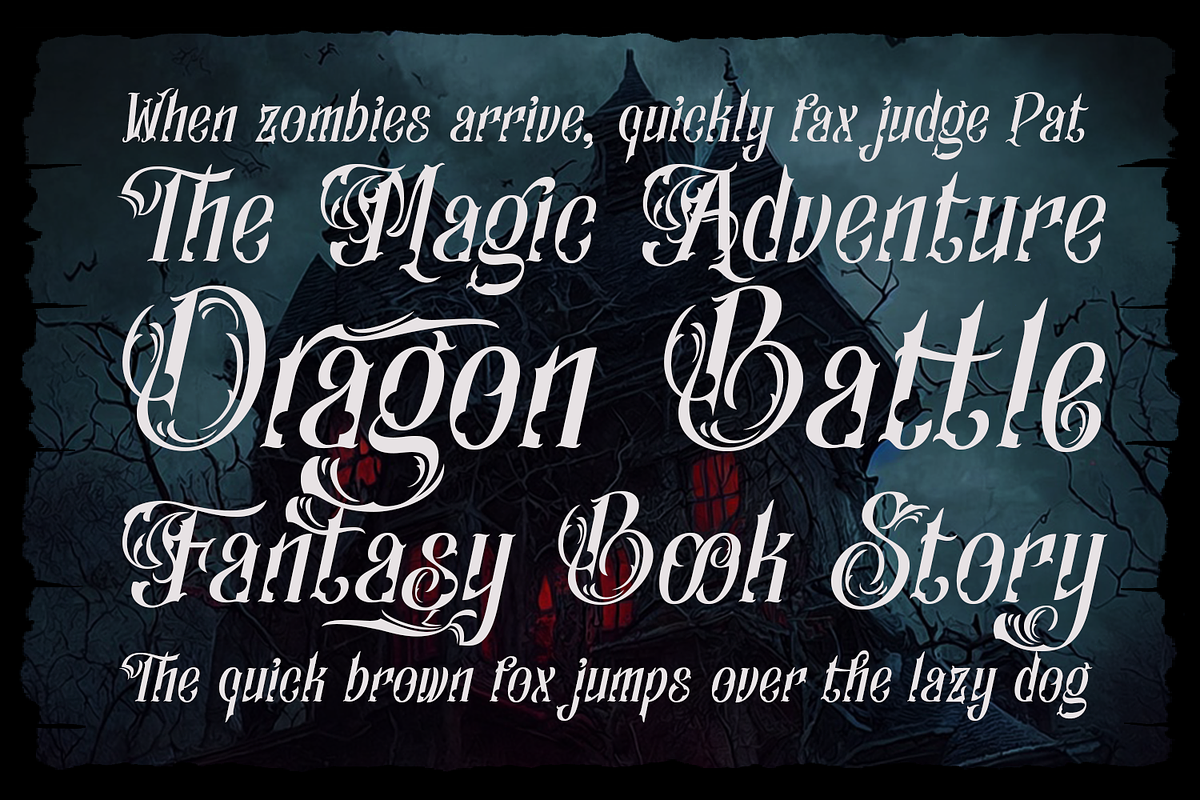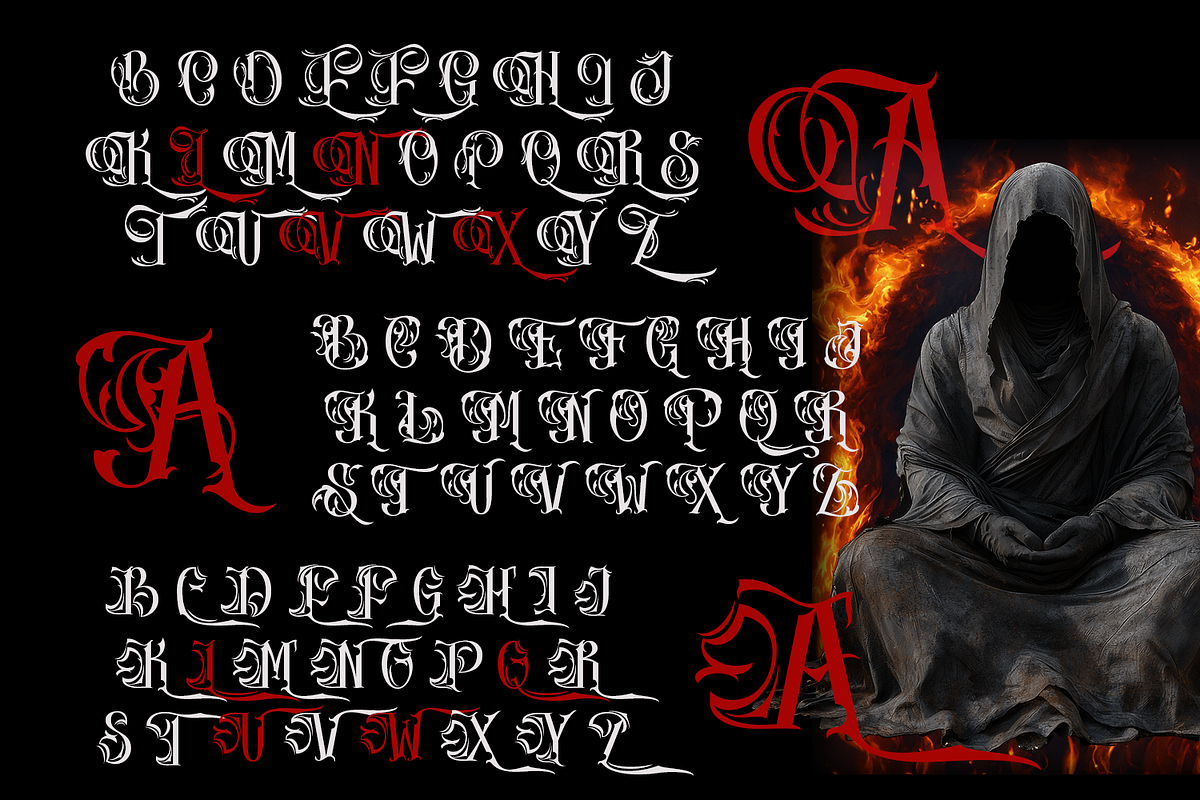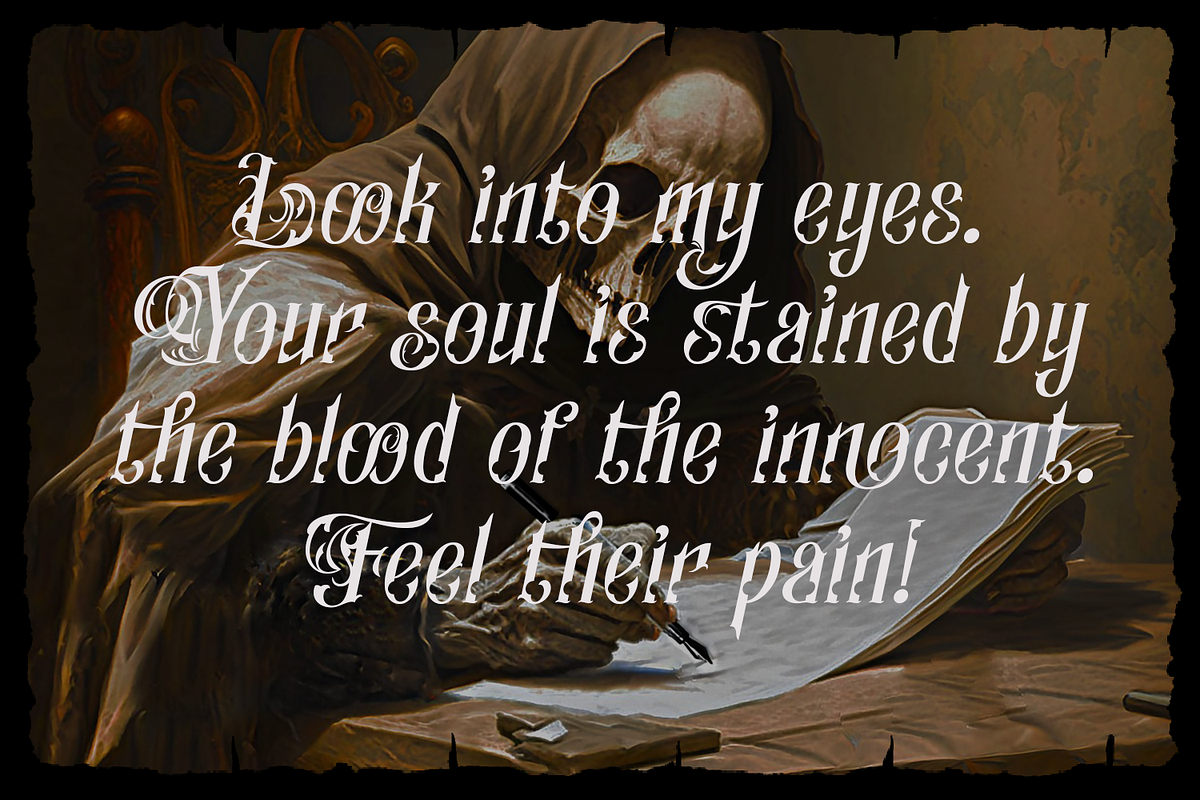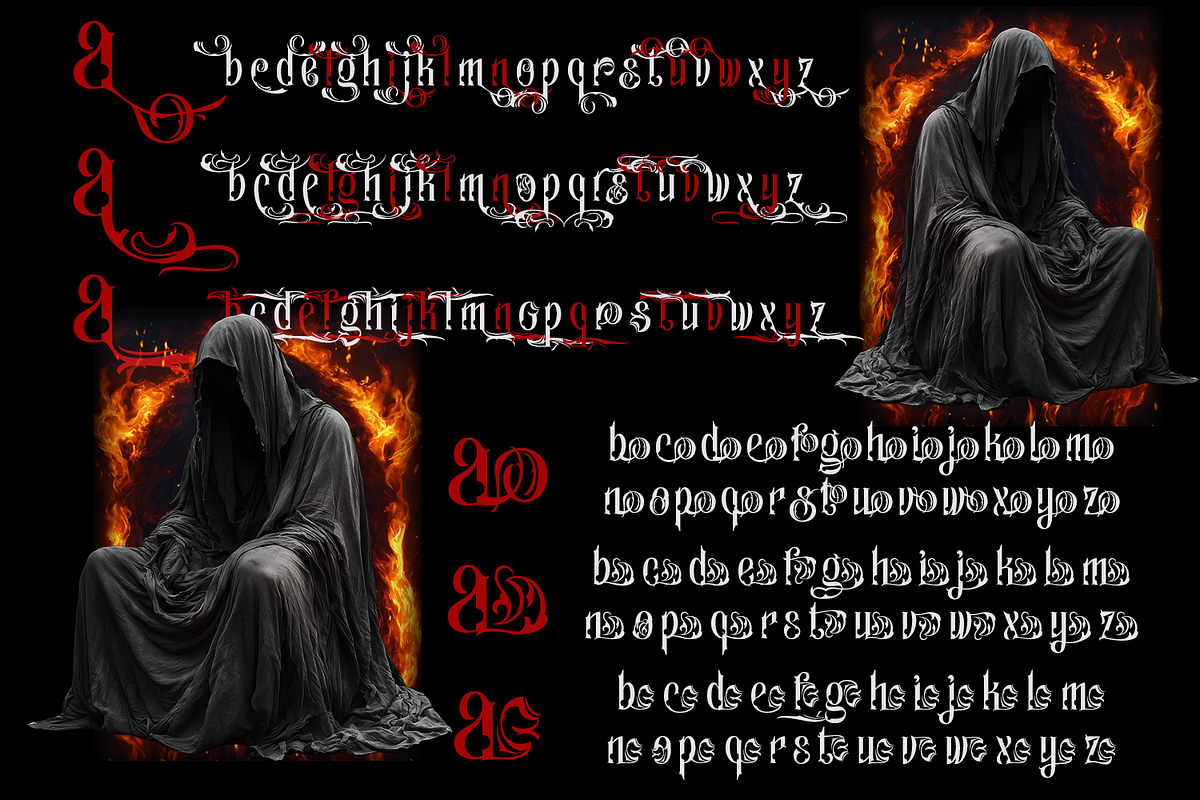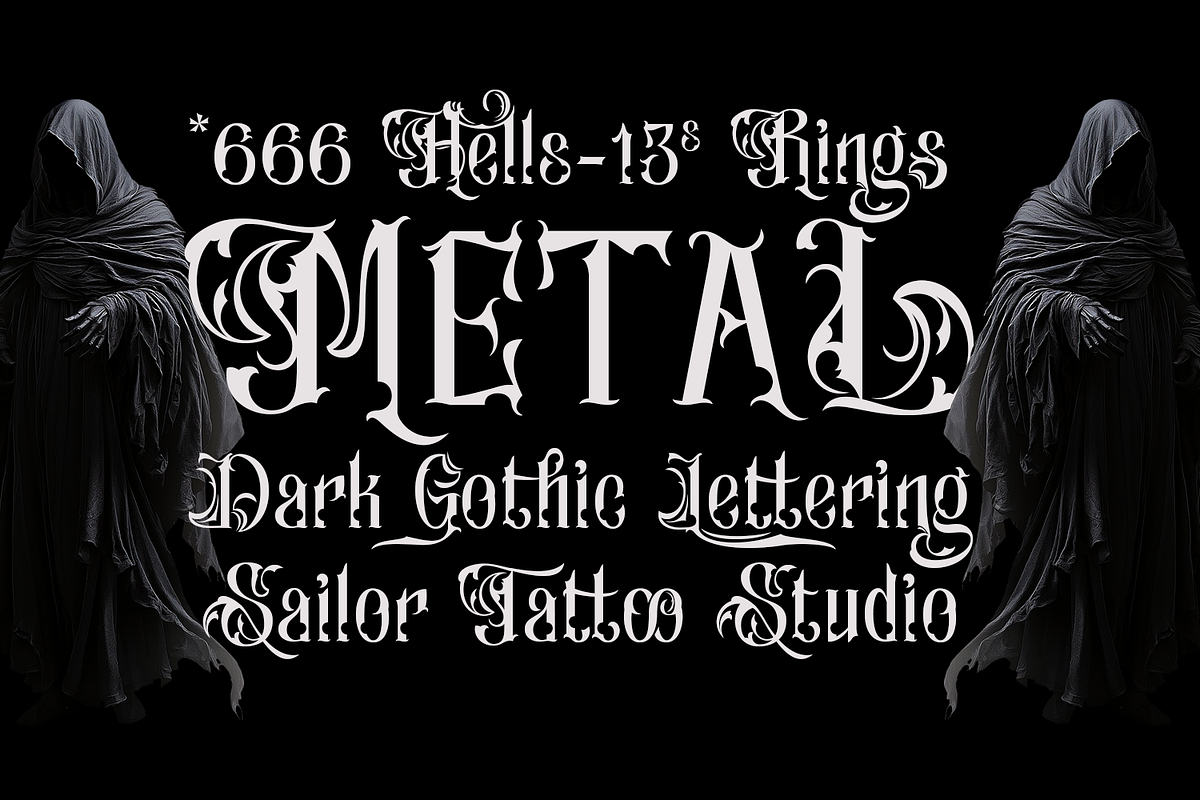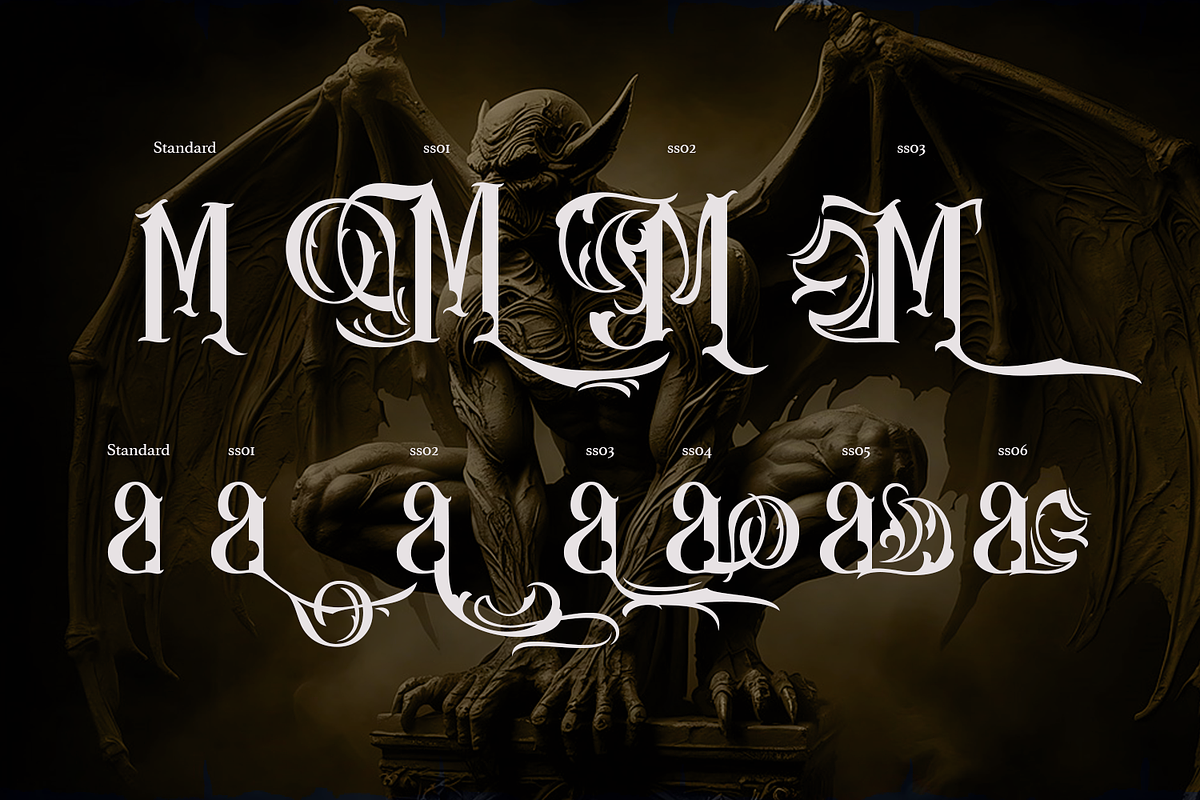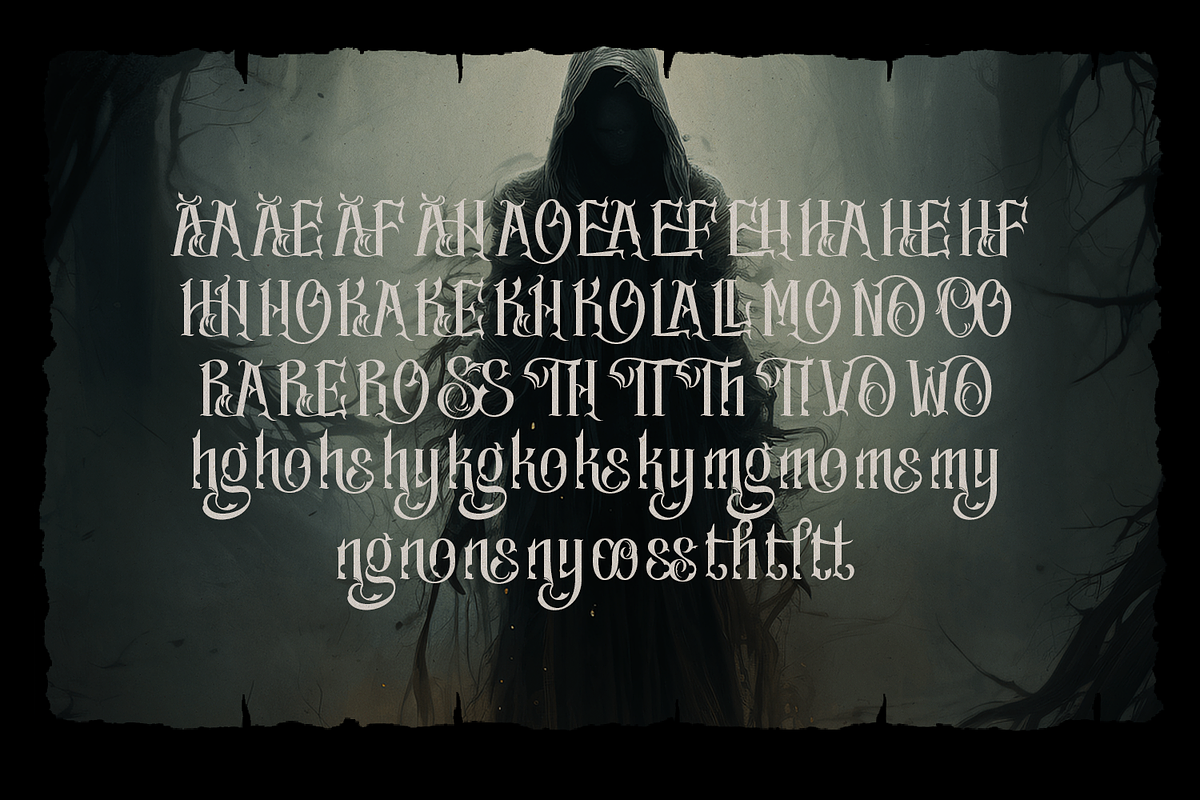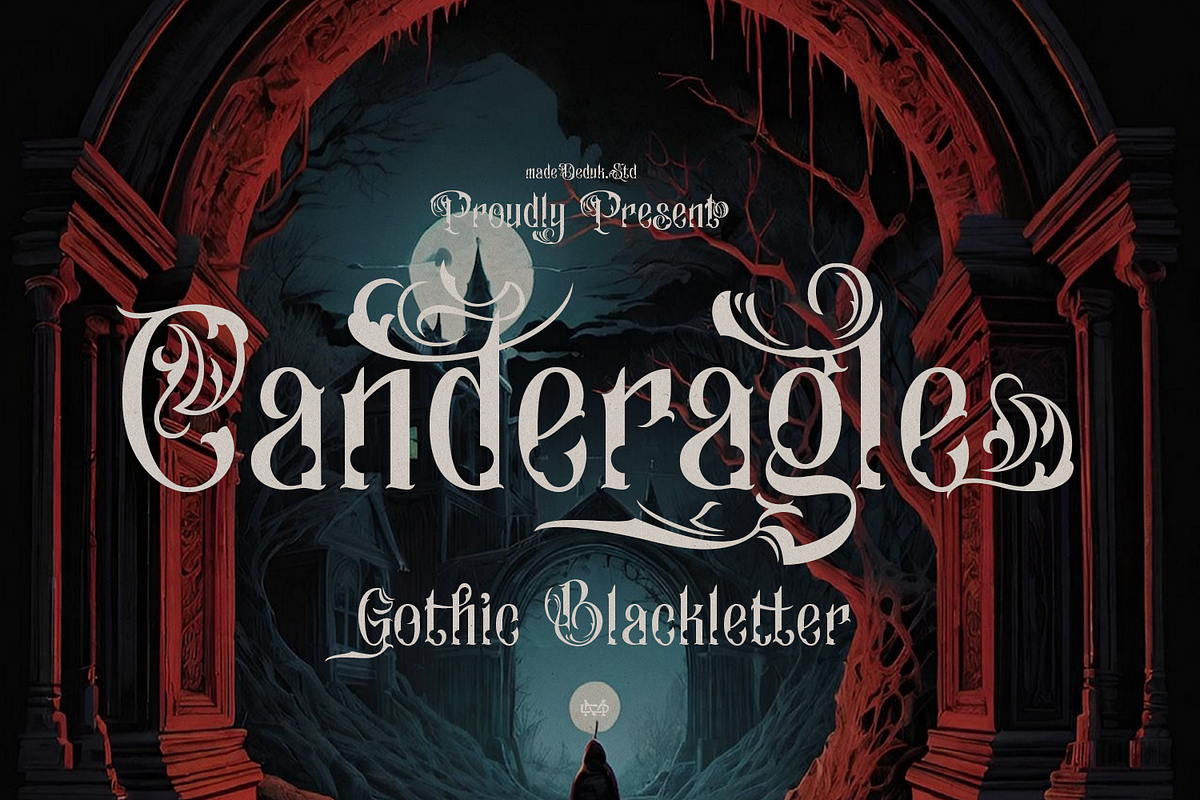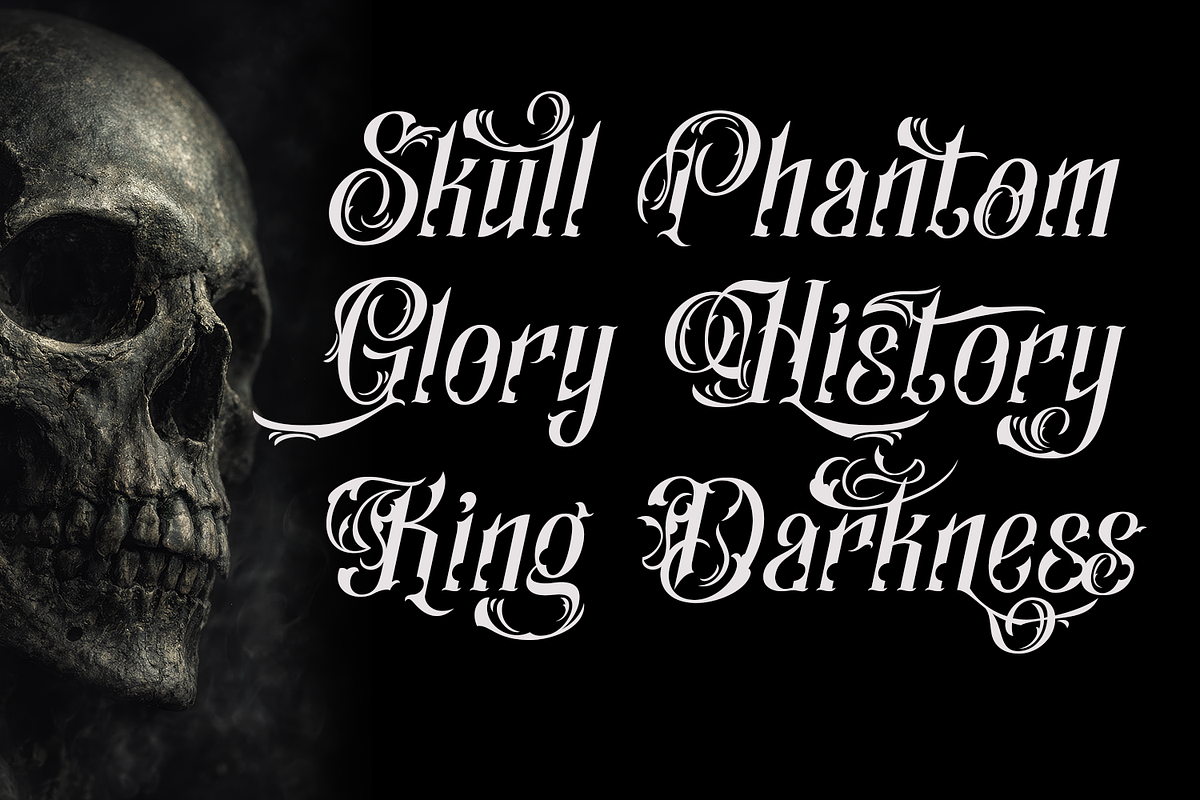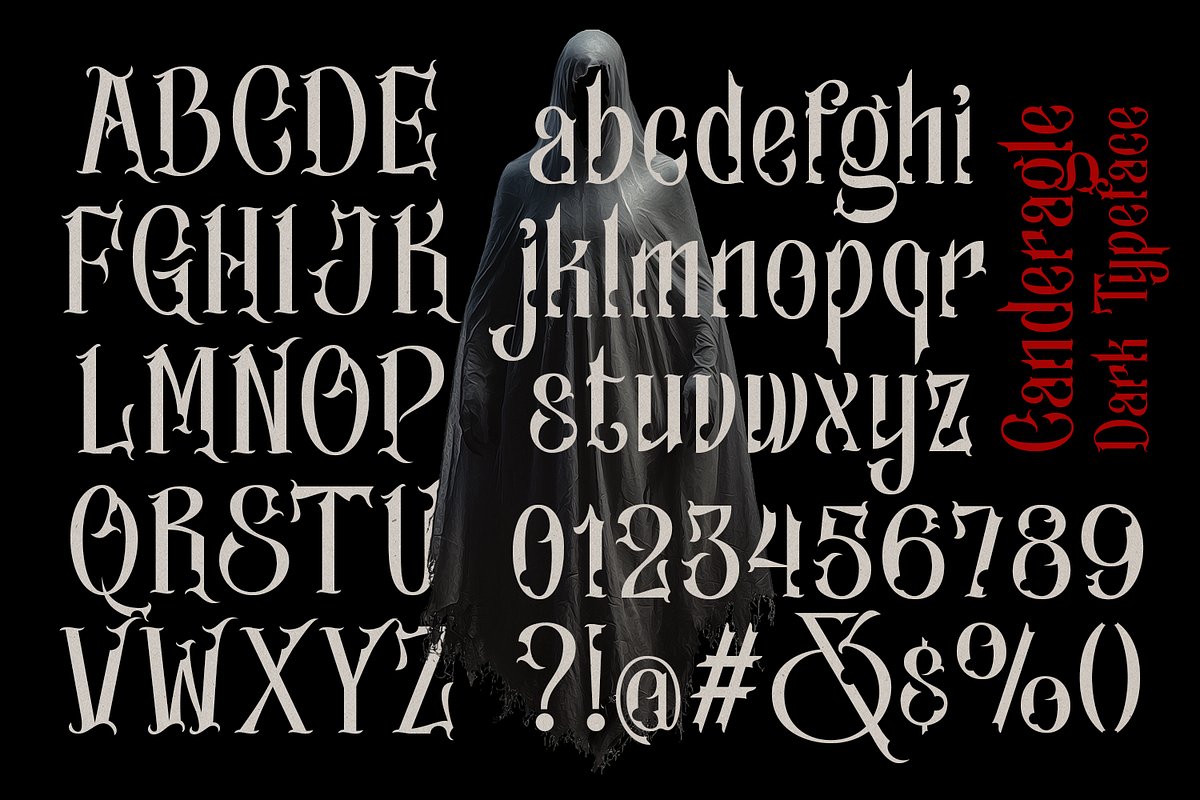
Canderagle Gothic Blackletter
Introducing Canderagle gothic blackletter, this font embodies an aristocratic Gothic aesthetic rich with nuances of luxury and power. Its dense, characteristic letter structure, with sharp edges and controlled curves, creates a strong yet elegant impression. Its visual appearance is reminiscent of ancient royal typography, emblems of nobility, and historical documents, reflecting dignity, tradition, and grandeur.
When applied, this font is highly effective for building a classy and bold visual identity. It is suitable for use on exclusive logos, editorial titles, album covers, and wedding-themed designs. Its presence can strengthen visual messages with a prestigious and dramatic aura, making each work appear more authoritative, historic, and imbued with a strong character.